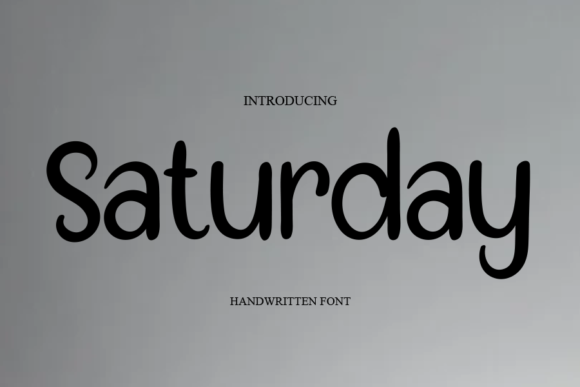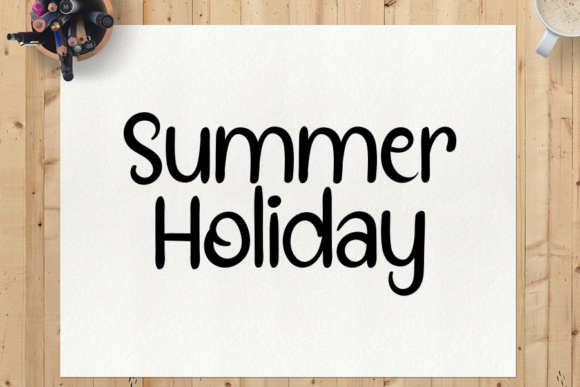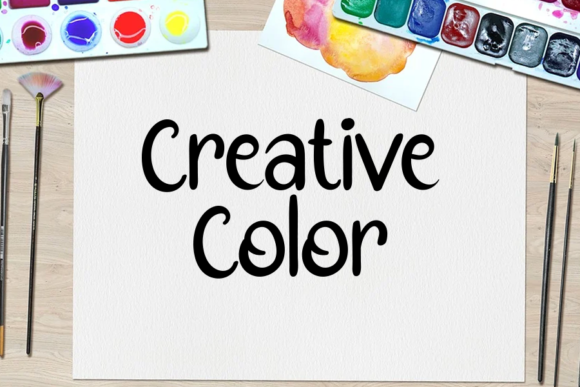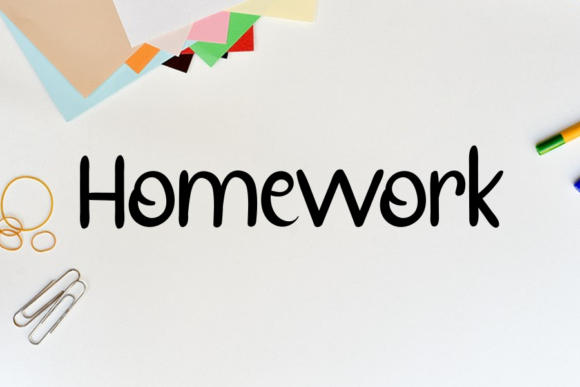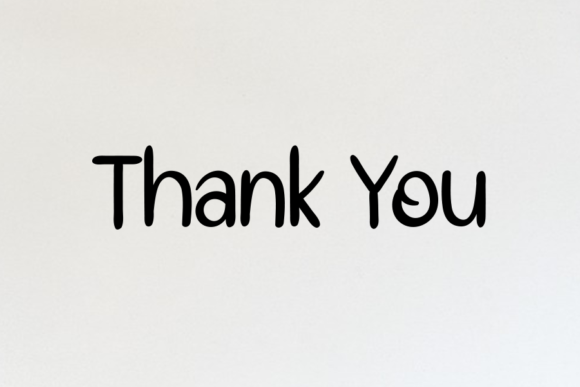
Saturday Font
About Saturday Font
Saturday is a clean, easy to read and delicate handwritten font. This font was particularly crafted for those who need a beautiful and refreshing look to their designs.